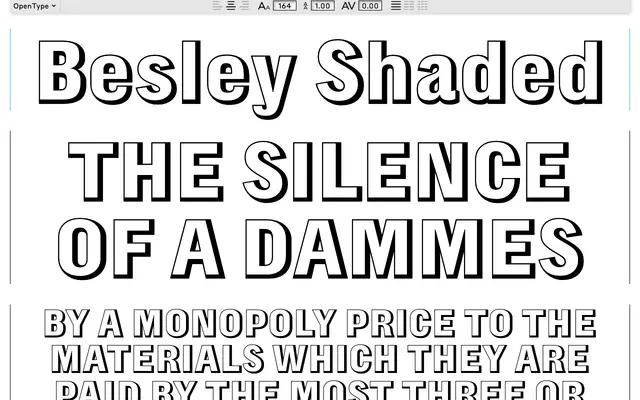
Besley Shaded
Commercial Type · Paul Barnes
Besley Shaded specimen from Commercial Type
A revival of Thorowgood and Besley's shaded condensed grotesque from the 1830s, with a shallow lower-right shadow that lifts letters gently off the page.
A shaded display sans revived by Paul Barnes for Commercial Classics, based on Two Lines Small Pica Grotesque, a condensed shaded grotesque first shown by Thorowgood in the 1830s and continued by his successor Robert Besley. The shadow falls to the lower right, with a depth around three and a half times that of the outline, much shallower than Caslon Antique Shaded. There is no bevelled angle, so the letters lift gently from the page rather than reading as fully three-dimensional. The condensed forms have plenty of character: a G without a crossbar, an R tail that tapers to a flat point, and numerals that taper to flat ends where one would expect a closed curve.
A Commercial Classics revival of Two Lines Small Pica Grotesque, a condensed shaded sans first shown by Thorowgood and continued by his successor Robert Besley. The shadow is to the lower right, shallow, and without the bevelled angle of Caslon Antique Shaded, giving a gentler lift from the page.